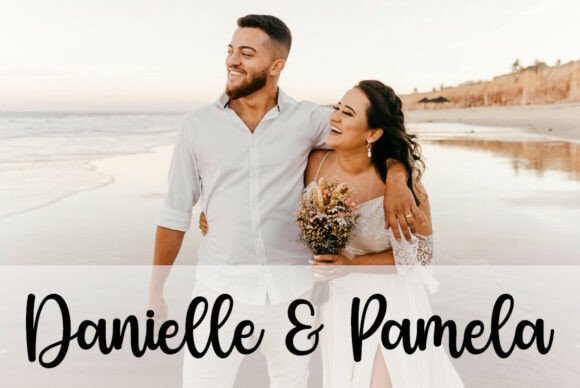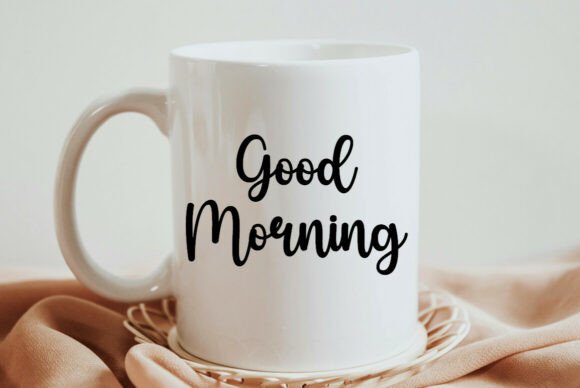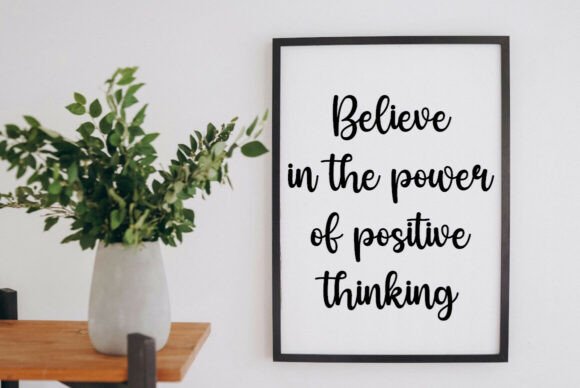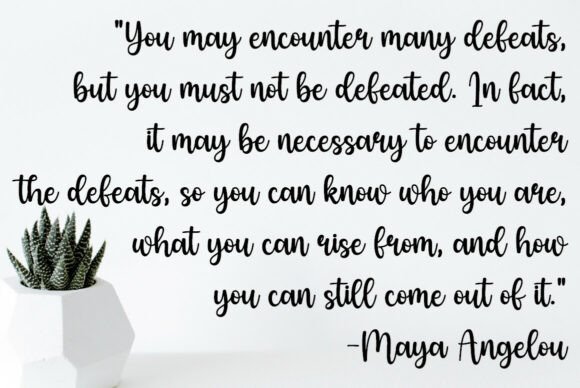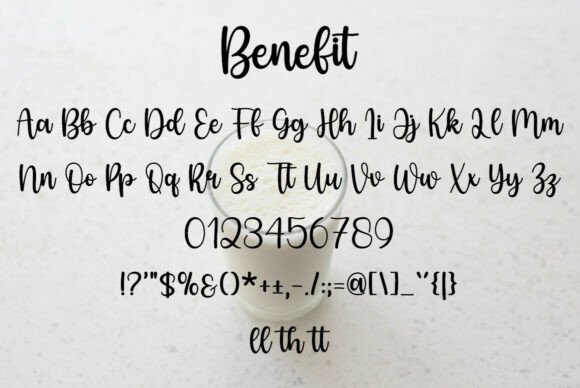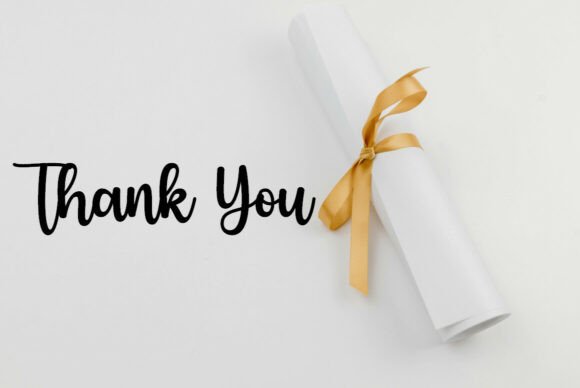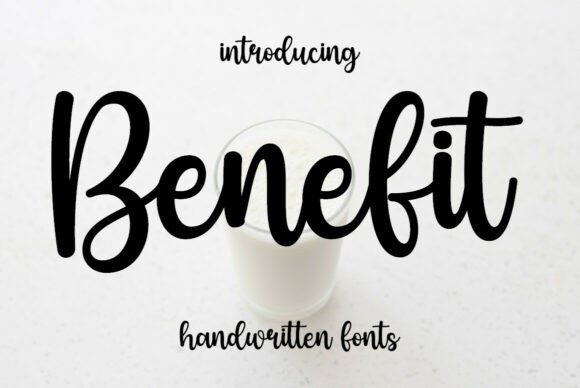
Introducing Benefit Font: The Sweet and Cursive Handwritten Font for Your Design Needs
Are you looking for a font that can add a touch of elegance and whimsy to your designs? Look no further than Benefit Font, a sweet and cursive handwritten font that is perfect for a variety of design projects. With its gentle and flowing lines, Benefit Font is sure to bring a joyful and romantic touch to your work.
What Makes Benefit Font Special?
Benefit Font is a unique and versatile font that can be used for a wide range of design ideas. Its cursive and handwritten style gives it a personal and human touch, making it perfect for designs that require a more personal and emotive approach. Whether you’re working on a branding project, a wedding invitation, or a fashion lookbook, Benefit Font is sure to add a touch of sophistication and elegance.
Benefit Font is a highly versatile font that can be used for a variety of design projects, including:
- Branding: Use Benefit Font to create a unique and memorable brand identity that stands out from the crowd.
- Logo Design: Create a stunning logo that showcases your brand’s personality and style with Benefit Font.
- Wedding Things: Add a touch of romance and whimsy to your wedding invitations, programs, and other stationery with Benefit Font.
- Greeting Cards: Create beautiful and heartfelt greeting cards for any occasion with Benefit Font.
- Fashion: Use Benefit Font to create stunning fashion lookbooks, catalogs, and advertisements that showcase your brand’s style and personality.
- Marketing Promotion: Add a touch of elegance and sophistication to your marketing materials, such as brochures, flyers, and posters, with Benefit Font.
Why Choose Benefit Font?
There are many reasons why Benefit Font is the perfect choice for your design needs. Here are just a few:
- Unique and Versatile: Benefit Font is a one-of-a-kind font that can be used for a wide range of design projects.
- Elegant and Whimsical: Benefit Font has a gentle and flowing style that adds a touch of elegance and whimsy to any design.
- Easy to Read: Benefit Font is highly legible, making it perfect for designs that require a clear and easy-to-read font.
- High-Quality: Benefit Font is a high-quality font that is designed to deliver exceptional results.
Tips and Tricks for Getting the Most Out of Benefit Font
Here are a few tips and tricks for getting the most out of Benefit Font:
- Experiment with Different Sizes: Benefit Font looks great in a variety of sizes, from small and delicate to large and bold.
- Play with Color: Benefit Font looks stunning in a range of colors, from soft pastels to bold and bright hues.
- Combine with Other Fonts: Benefit Font pairs well with a range of other fonts, making it easy to create stunning and unique designs.
In conclusion, Benefit Font is a sweet and cursive handwritten font that is perfect for a variety of design projects. With its gentle and flowing lines, Benefit Font is sure to add a joyful and romantic touch to your work. Whether you’re working on a branding project, a wedding invitation, or a fashion lookbook, Benefit Font is the perfect choice. So why wait? Download Benefit Font today and start creating stunning designs that showcase your creativity and style.